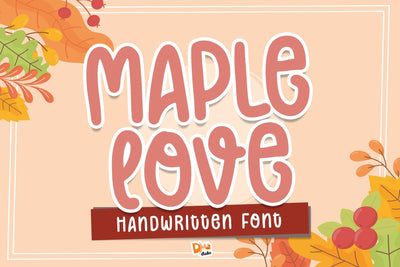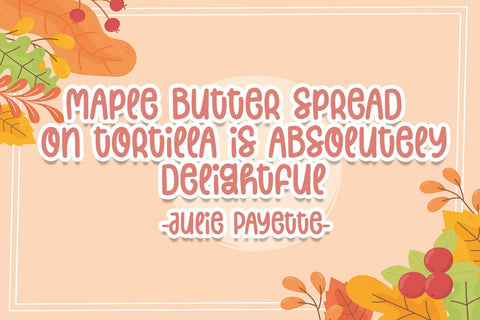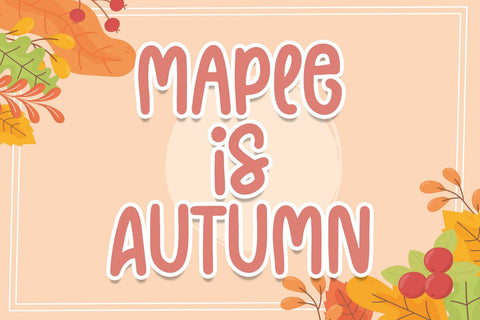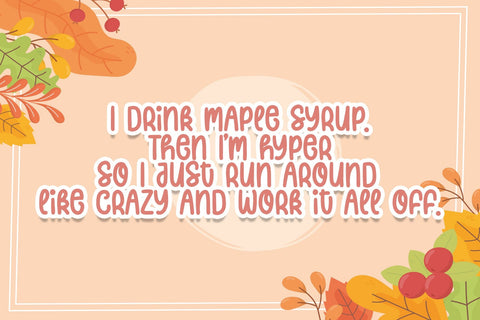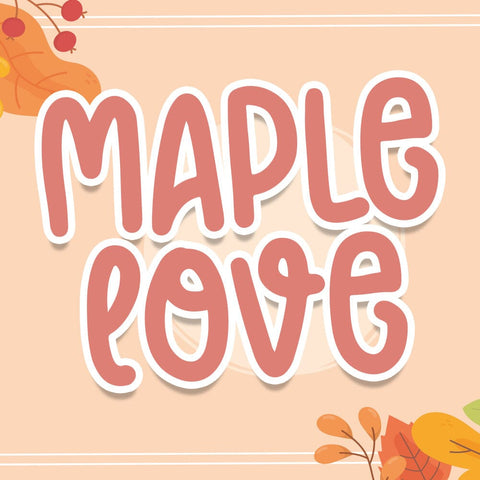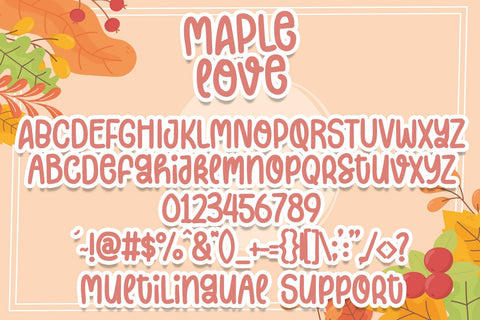
Maple Love Font
Maple Love Font is a captivating and versatile typeface designed to infuse your designs with warmth and charm. With its graceful letterforms inspired by nature's beauty, this font is perfect for a variety of projects, including wedding invitations, branding, and more. Elevate your designs with the romantic and timeless aesthetic of the Maple Love Font.
- Romantic and Timeless Design: Maple Love Font features graceful and romantic letterforms that bring a touch of timeless elegance to your text.
- Versatility in Application: Ideal for a range of design projects, from wedding invitations to brand identity, adding a touch of natural beauty to your creations.
- Uppercase and Lowercase Letters: Both uppercase and lowercase letters included for creative flexibility.
- Punctuation and Symbols: Comprehensive set of punctuation marks, numerals, and symbols for consistent and versatile use.